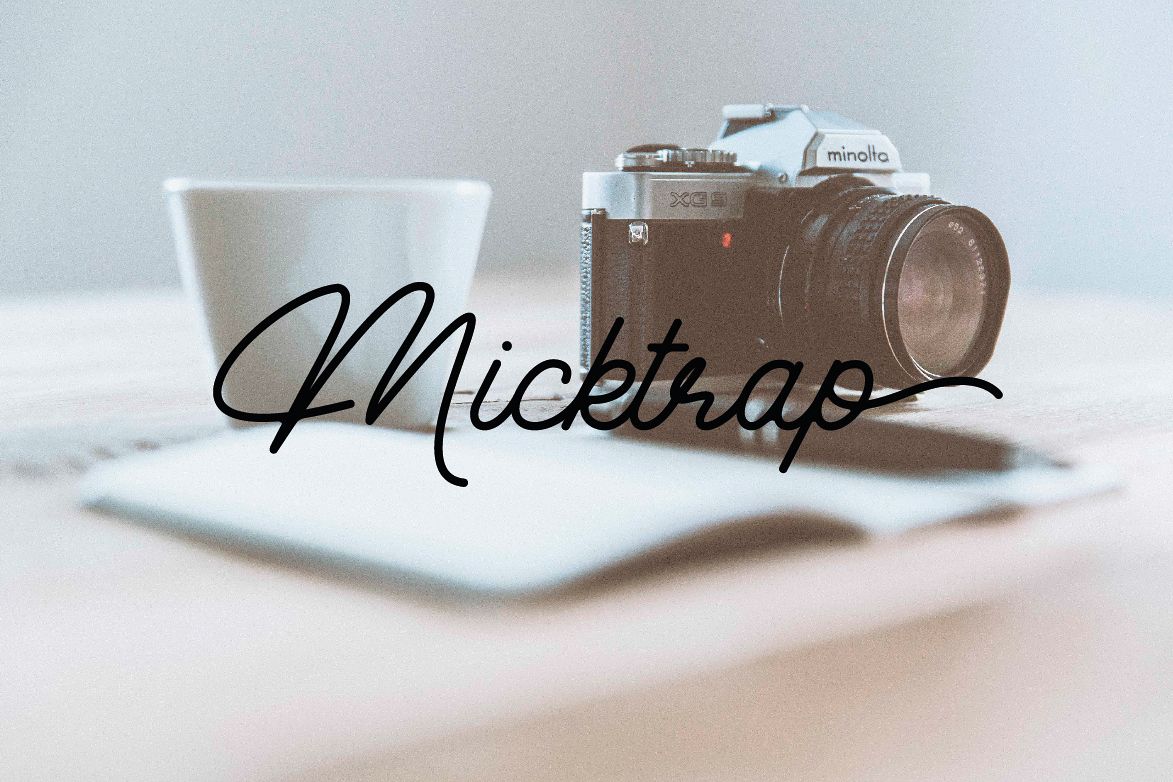
Micktrap
Micktrap-Regular
Micktrap is a mix font with monolined style, inspired by modern script. Micktrap has 900+ glyphs, features can accessed via OpenType panel. Ascenders and descenders are uncommon in this font. This fonts good for daily design, headline, tagline, package, label, poster, logo, wedding invitattion, badge, display etc